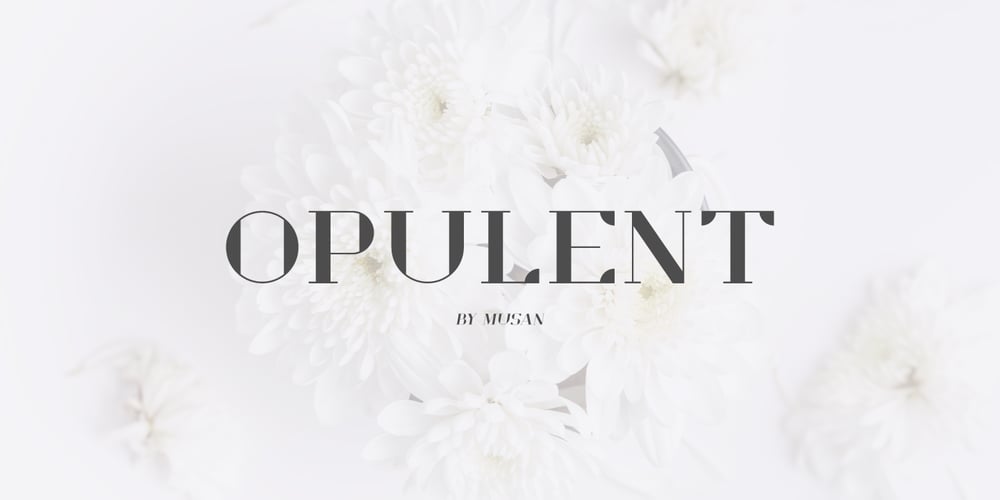
Opulent Font Family was designed by Muhammad Hasan and published by MuSan. Opulent contains 2 styles and family package options. Opulent is a modern, minimal and classy Serif Display font that is perfect for all your project. This font would pair perfectly with a script/signature or handwritten style text or as you can see in the images above, it looks fab by itself! This font contains an All Uppercase alphabet, numbers, Multilingual and basic punctuation. (If you’re having trouble finding the basic punctuation, you can access it in the Glyphs panel) Please let me know in the comments what you think or if you have any questions/requests!